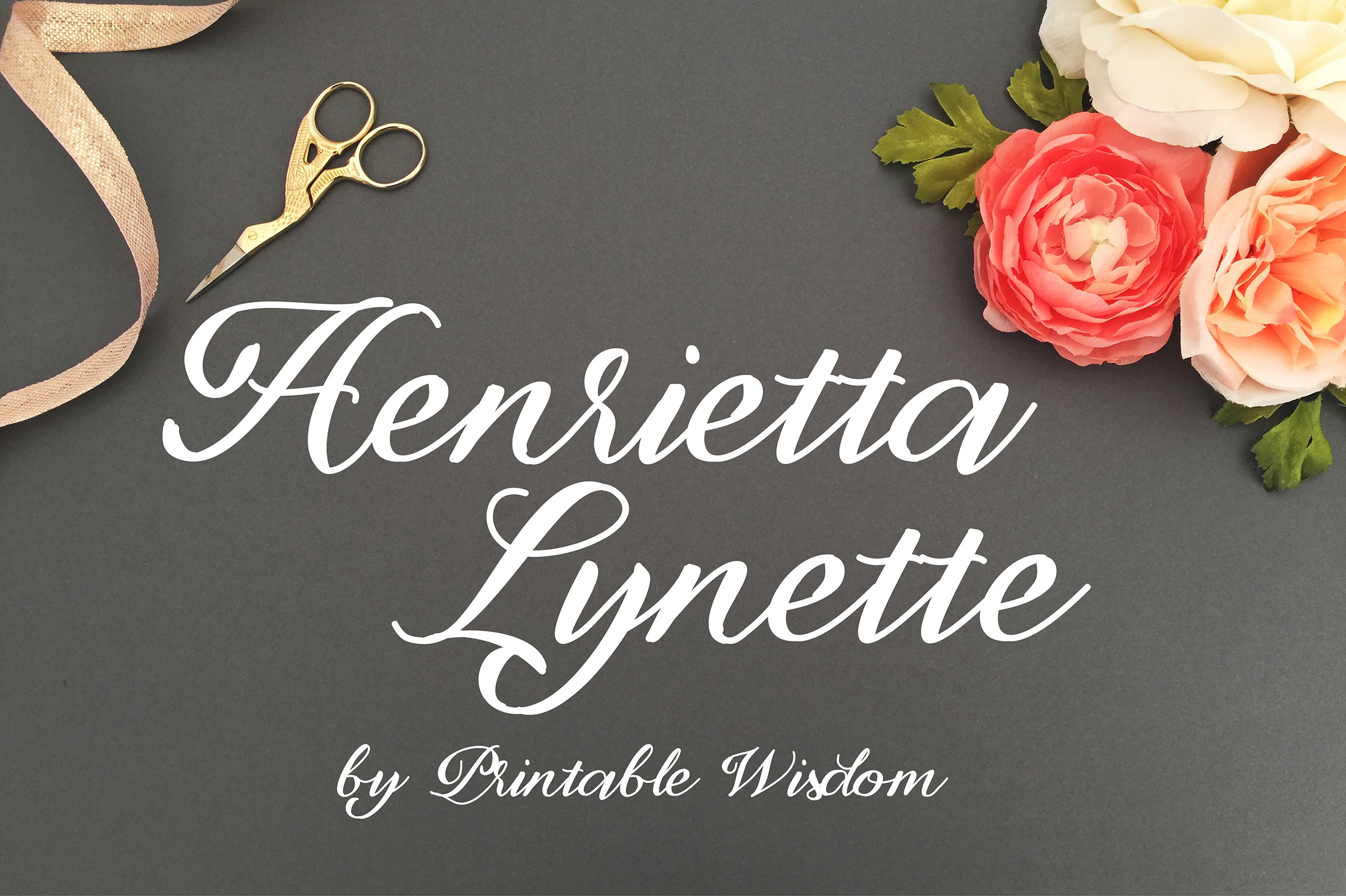
Henrietta Lynette Font
This hand lettered calligraphy font features gorgeous majuscule letterforms and is fancy enough for adding that special touch to your wedding invitations.
All standard punctuation and numbers are included.